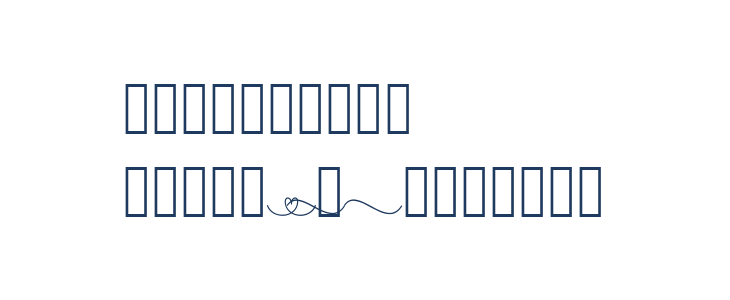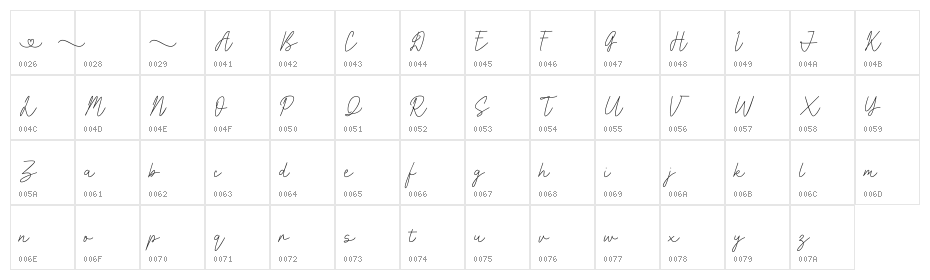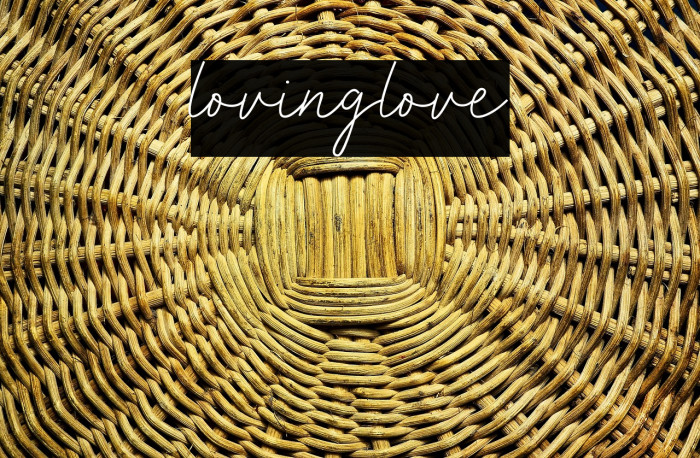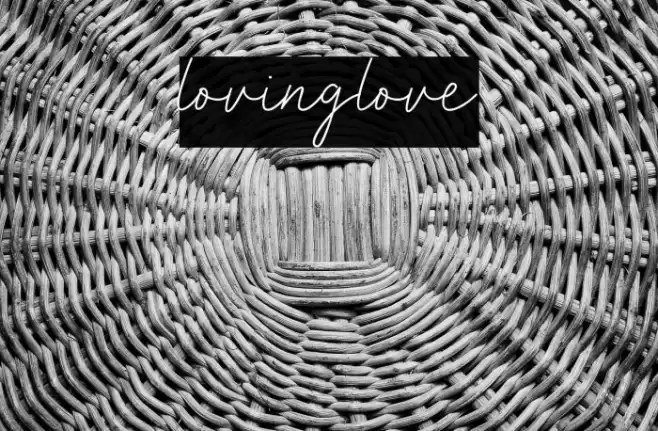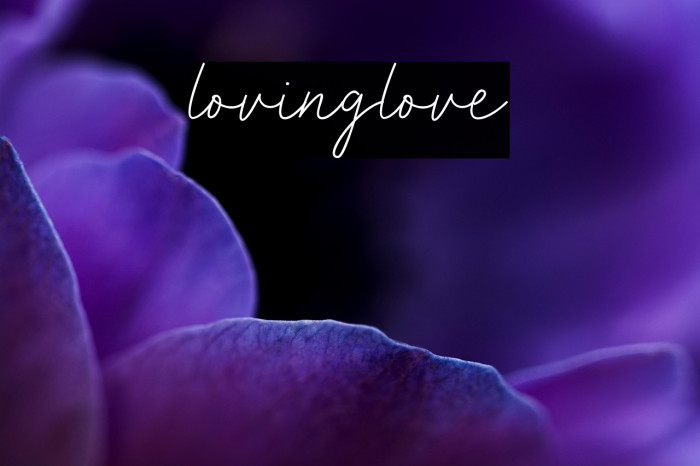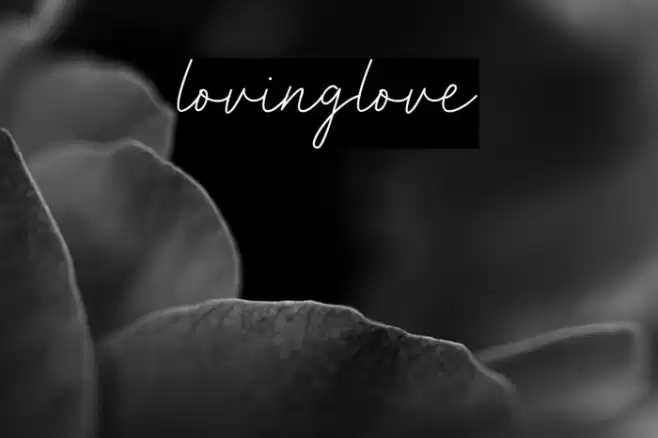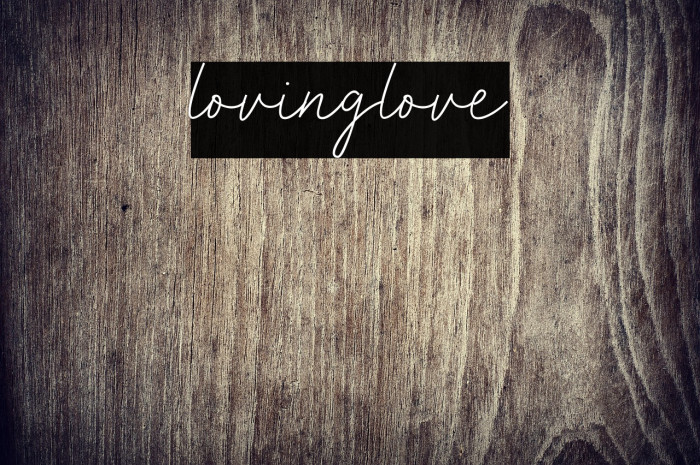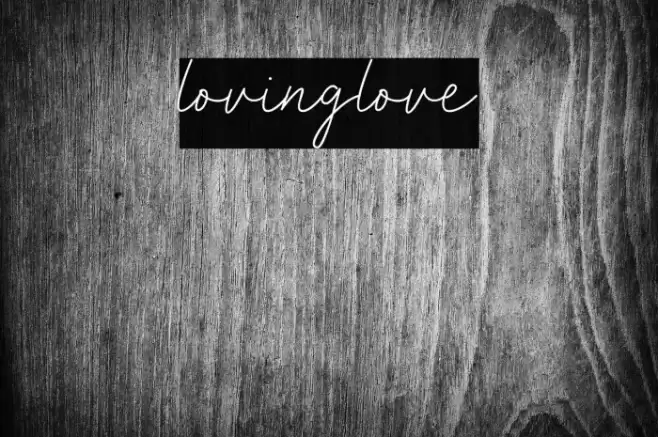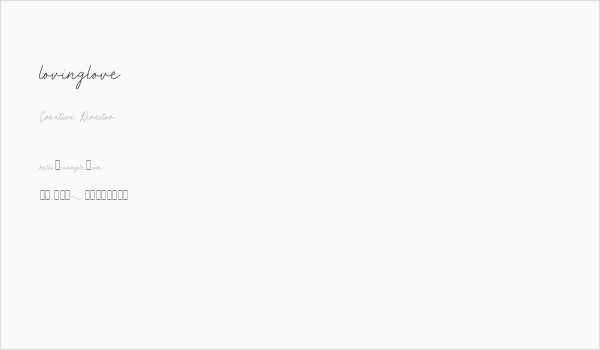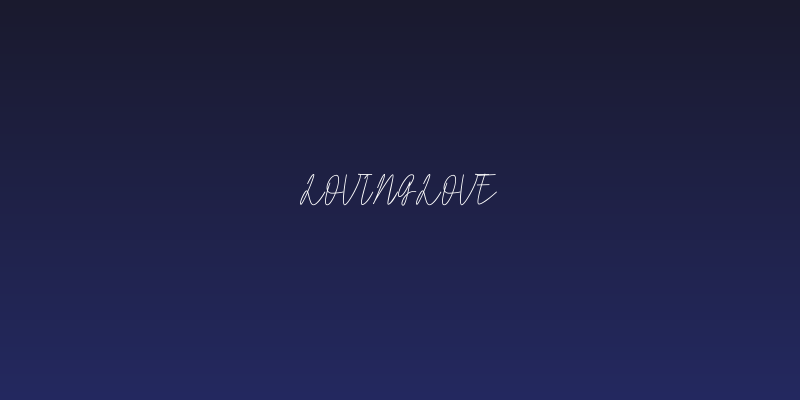
lovinglove Font
lovinglove Description
This elegant script font features a delicate and flowing style, characterized by its smooth, continuous strokes that mimic the fluidity of handwriting. The letters are slightly slanted, adding a sense of motion and grace. Each character is connected, creating a seamless and harmonious appearance. The font exudes a romantic and sophisticated vibe, making it ideal for projects that require a personal touch. Its thin lines and gentle curves give it a refined and airy feel, perfect for conveying elegance and charm.
| Overall Style | Romantic |
| Proposed Projects | Ideal for wedding invitations, greeting cards, personal branding, and romantic-themed designs. |